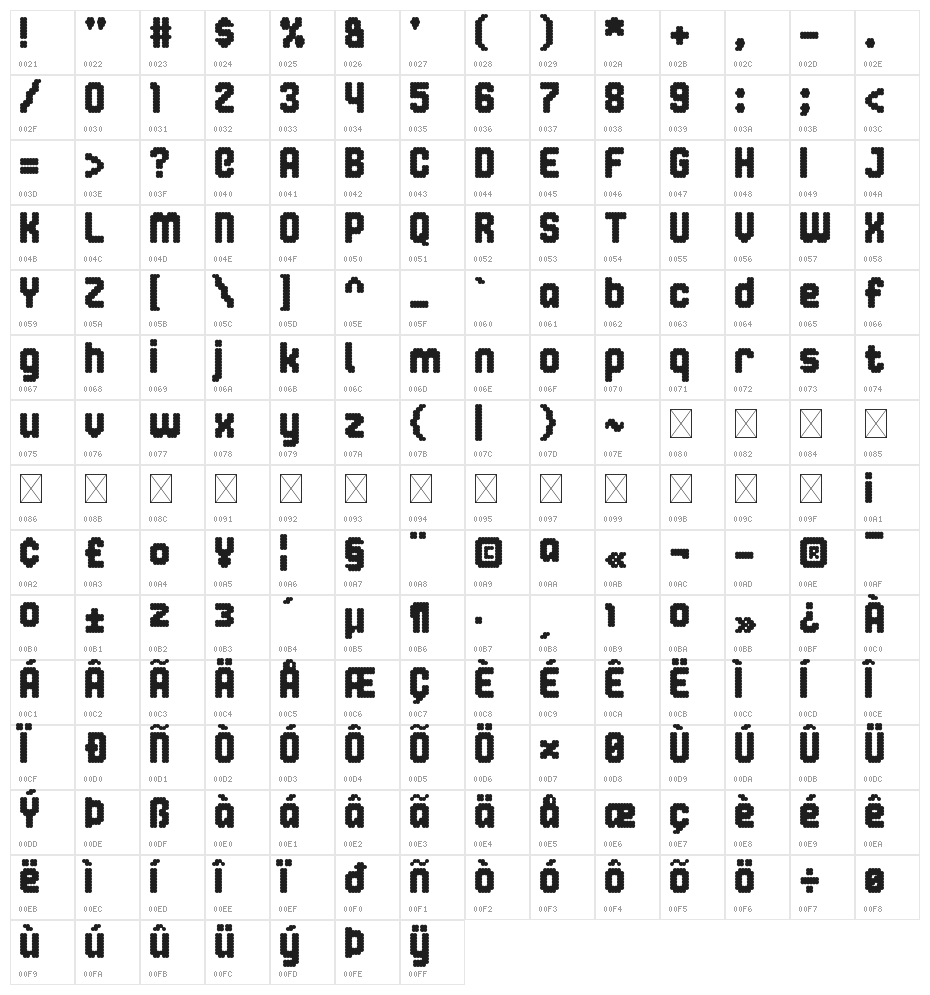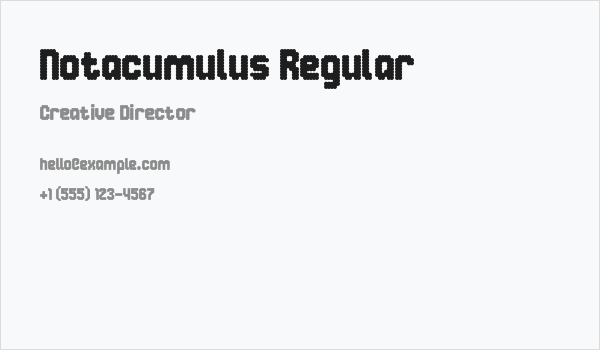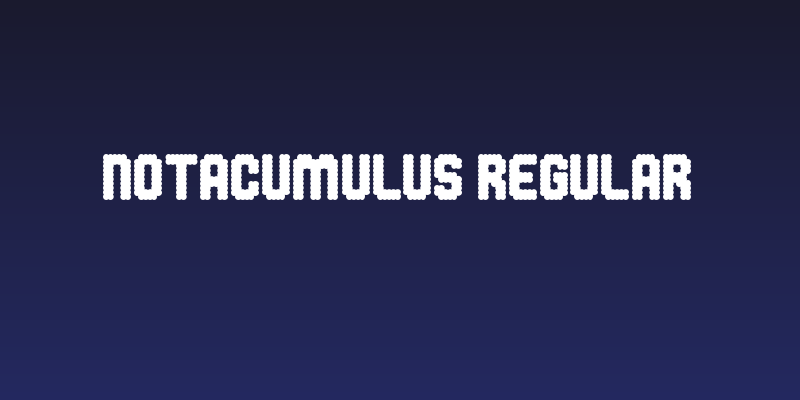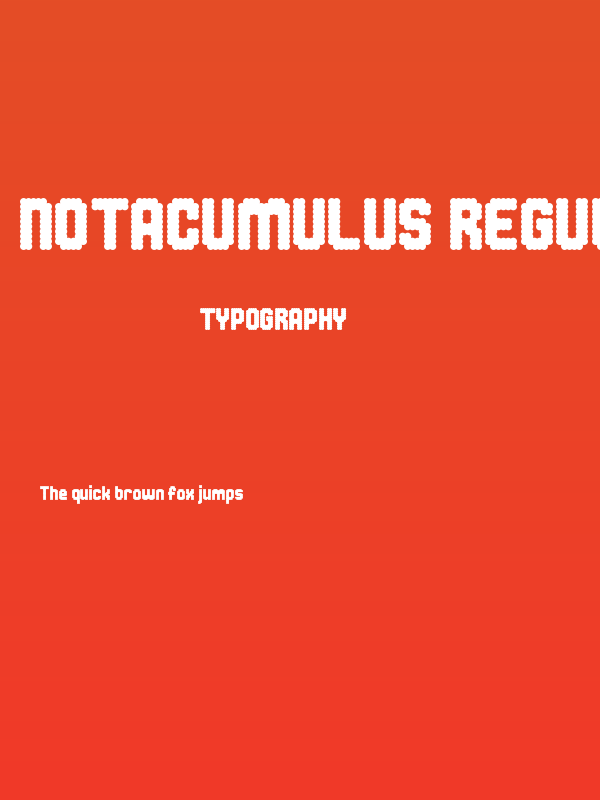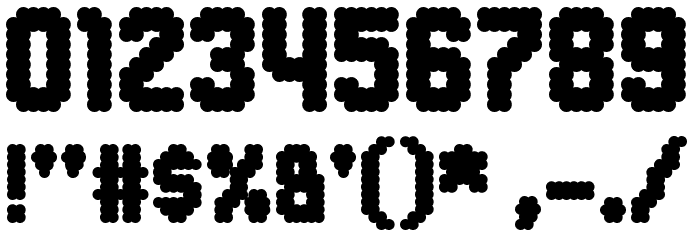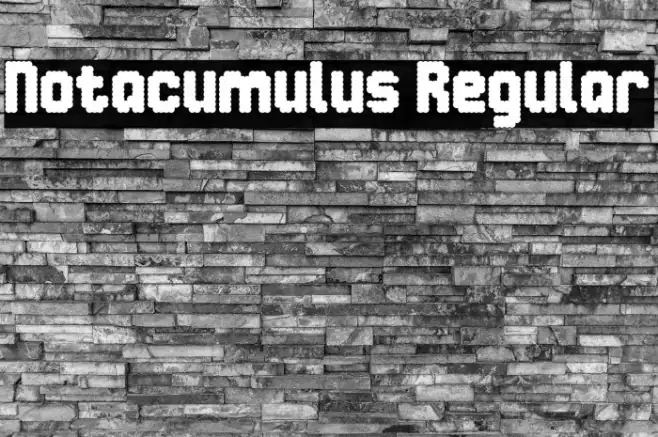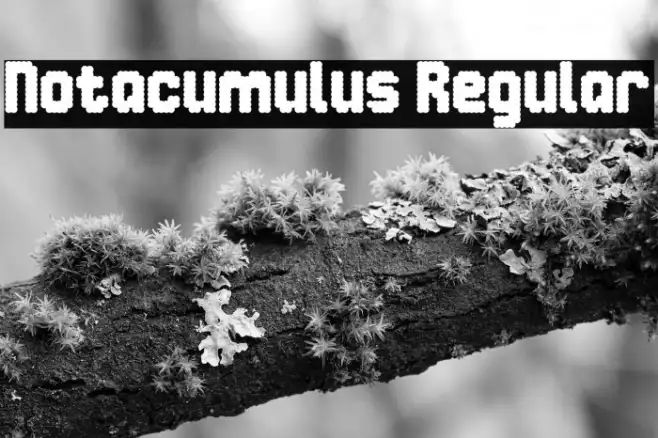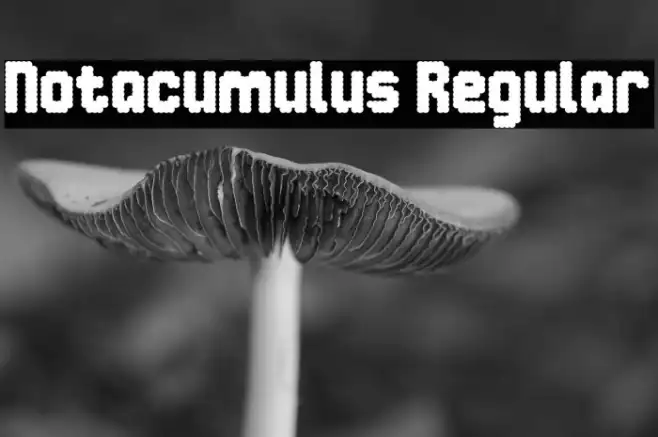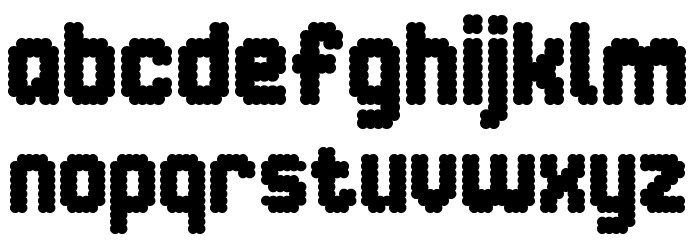
Notacumulus Regular Font
Notacumulus Regular Description
This font features a unique, playful design with characters composed of small, rounded shapes resembling clouds or bubbles. The letters are bold and have a consistent thickness, creating a cohesive and visually striking appearance. The uppercase and lowercase letters maintain a uniform style, while the numbers and special characters integrate seamlessly with the overall design. The font's whimsical nature makes it stand out, offering a distinct look that is both modern and fun. Its boldness ensures readability, while the rounded edges provide a soft, approachable feel.
| Overall Style | Playful, Modern |